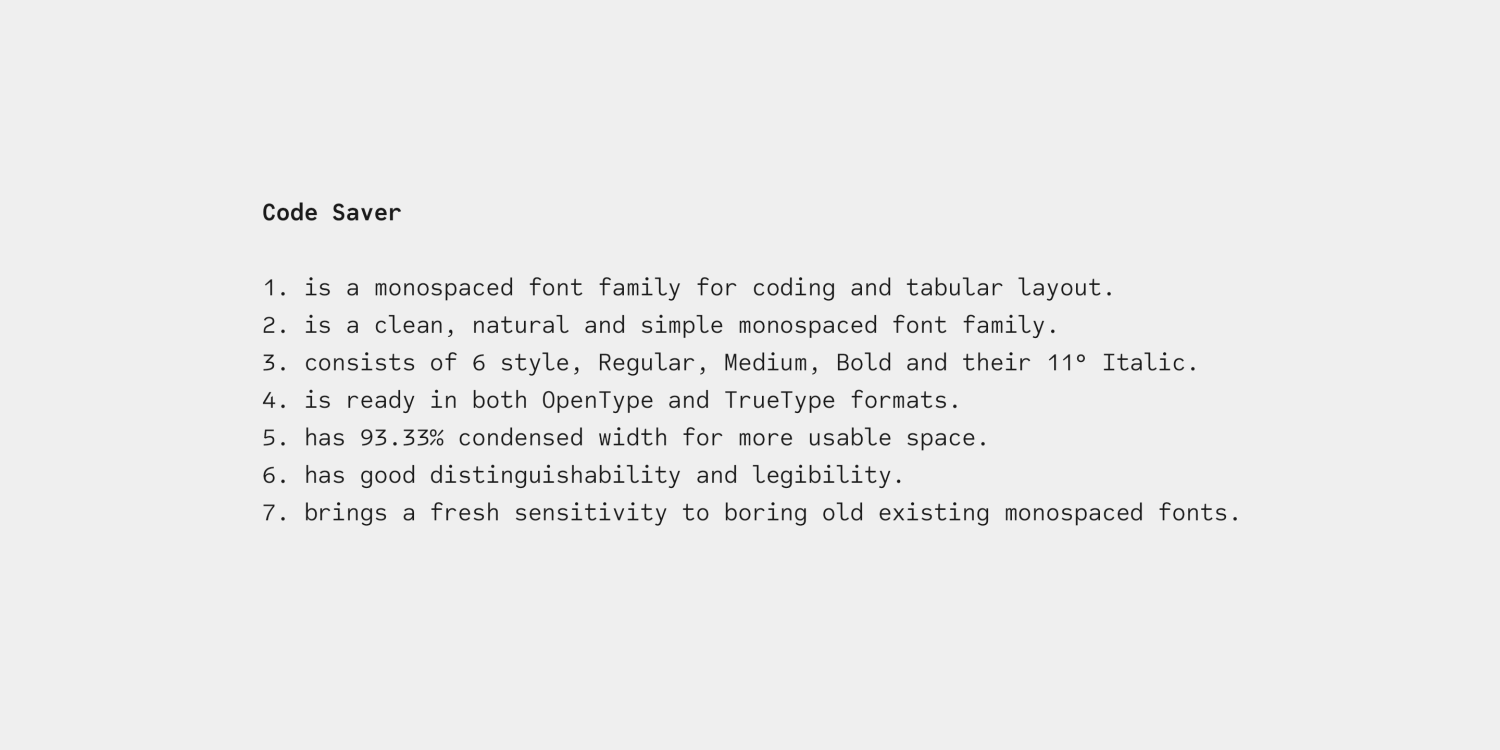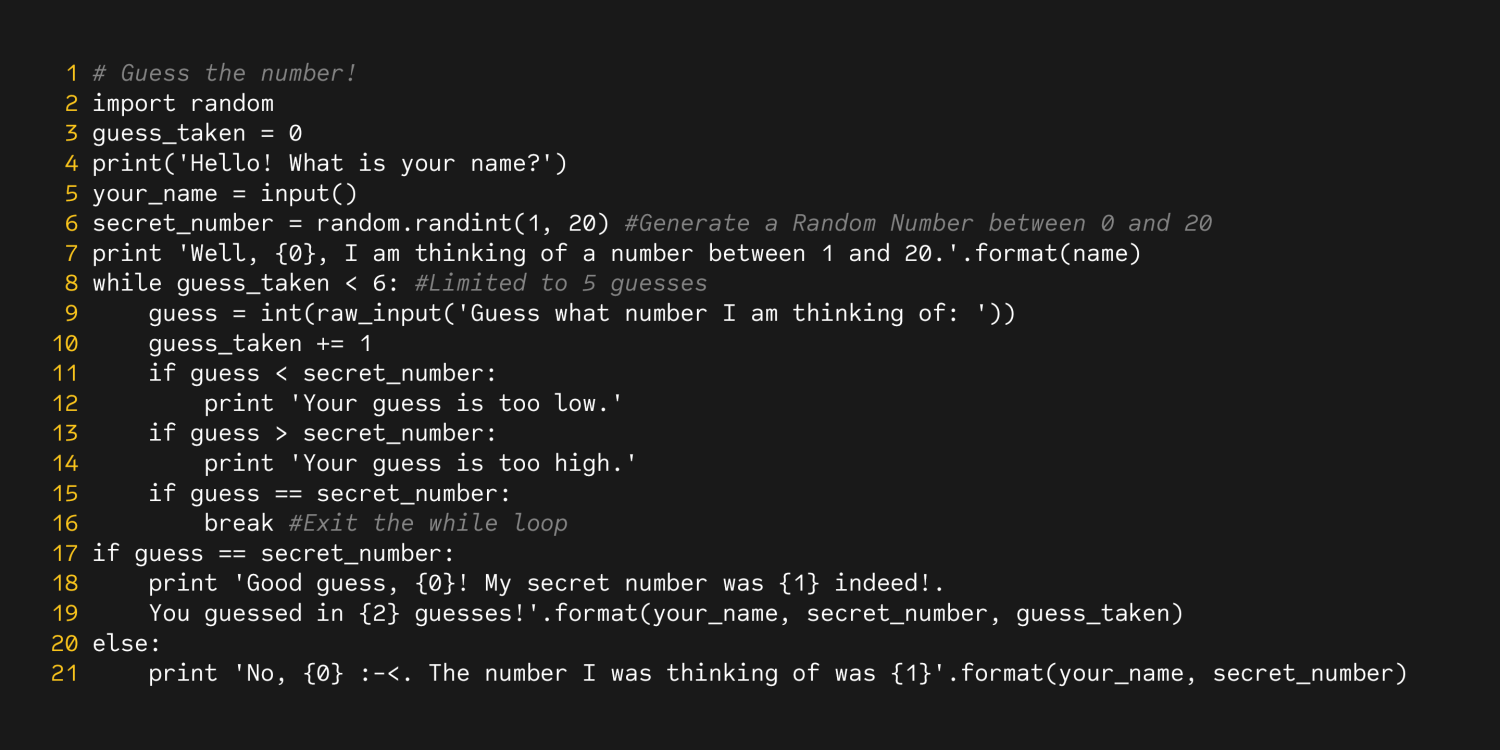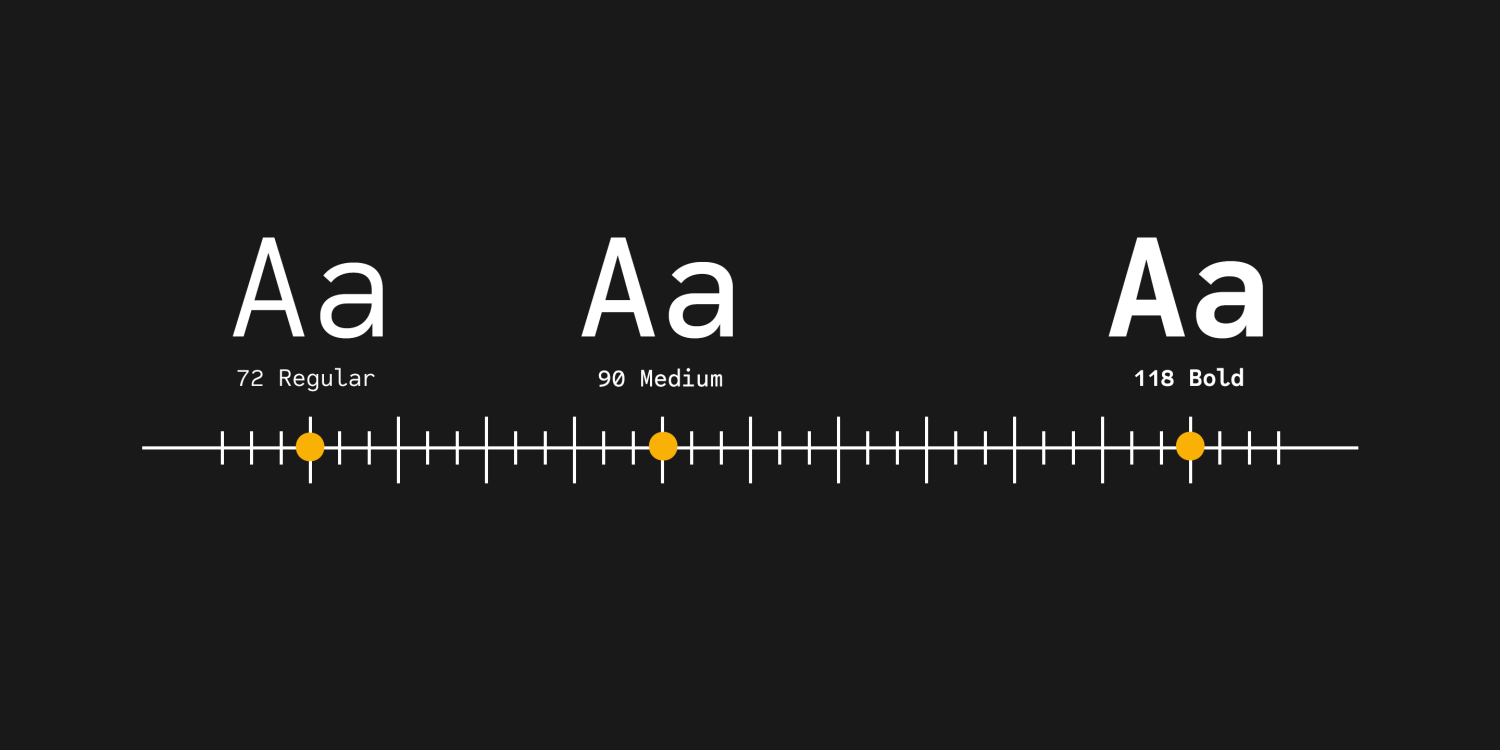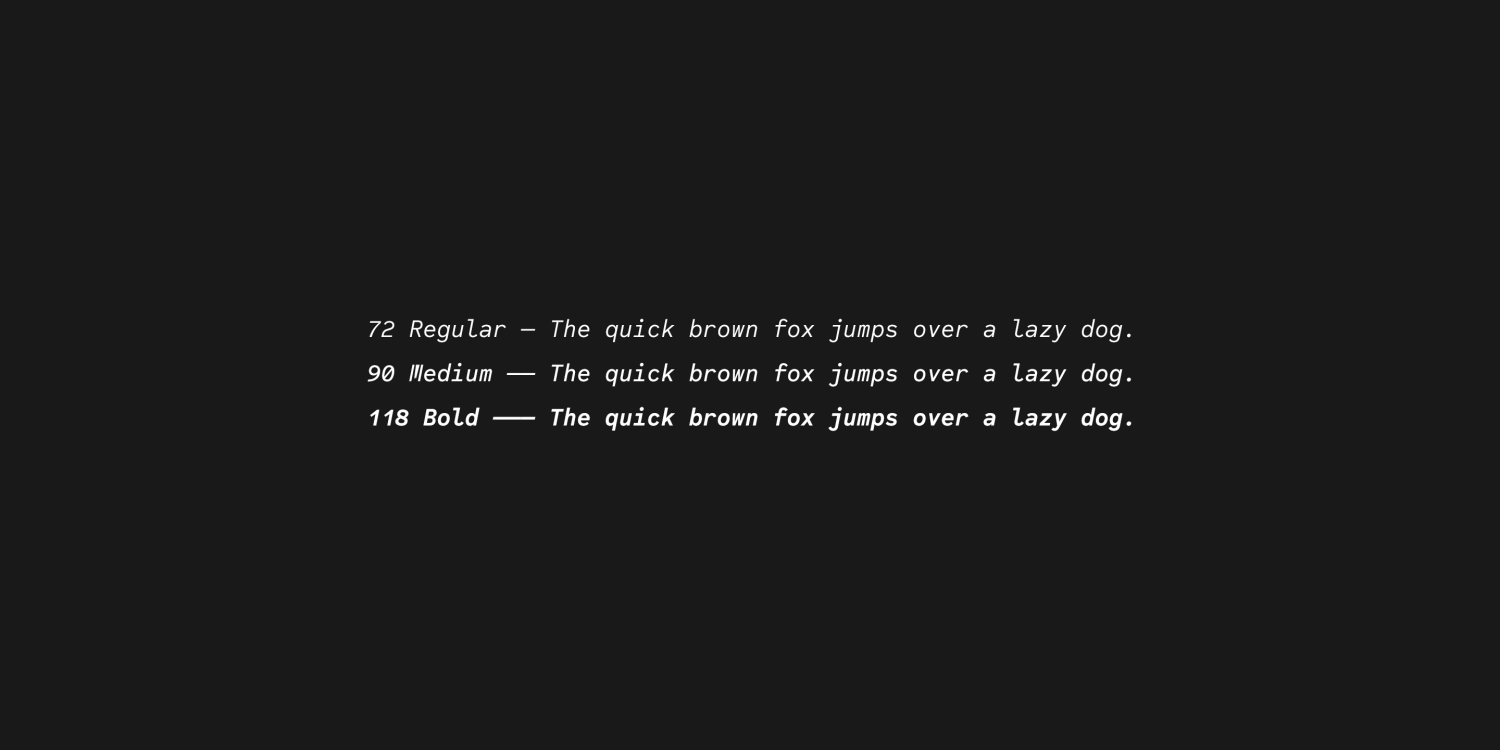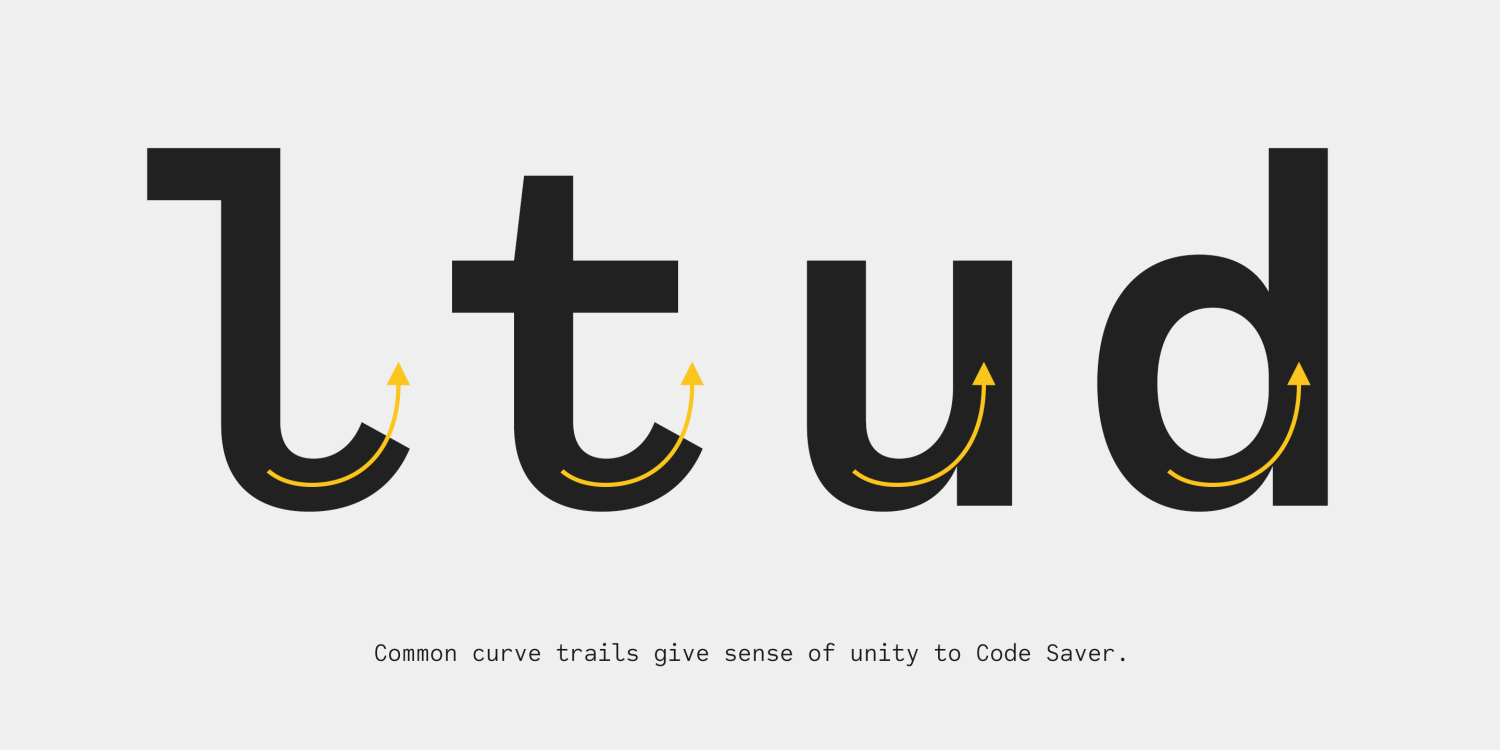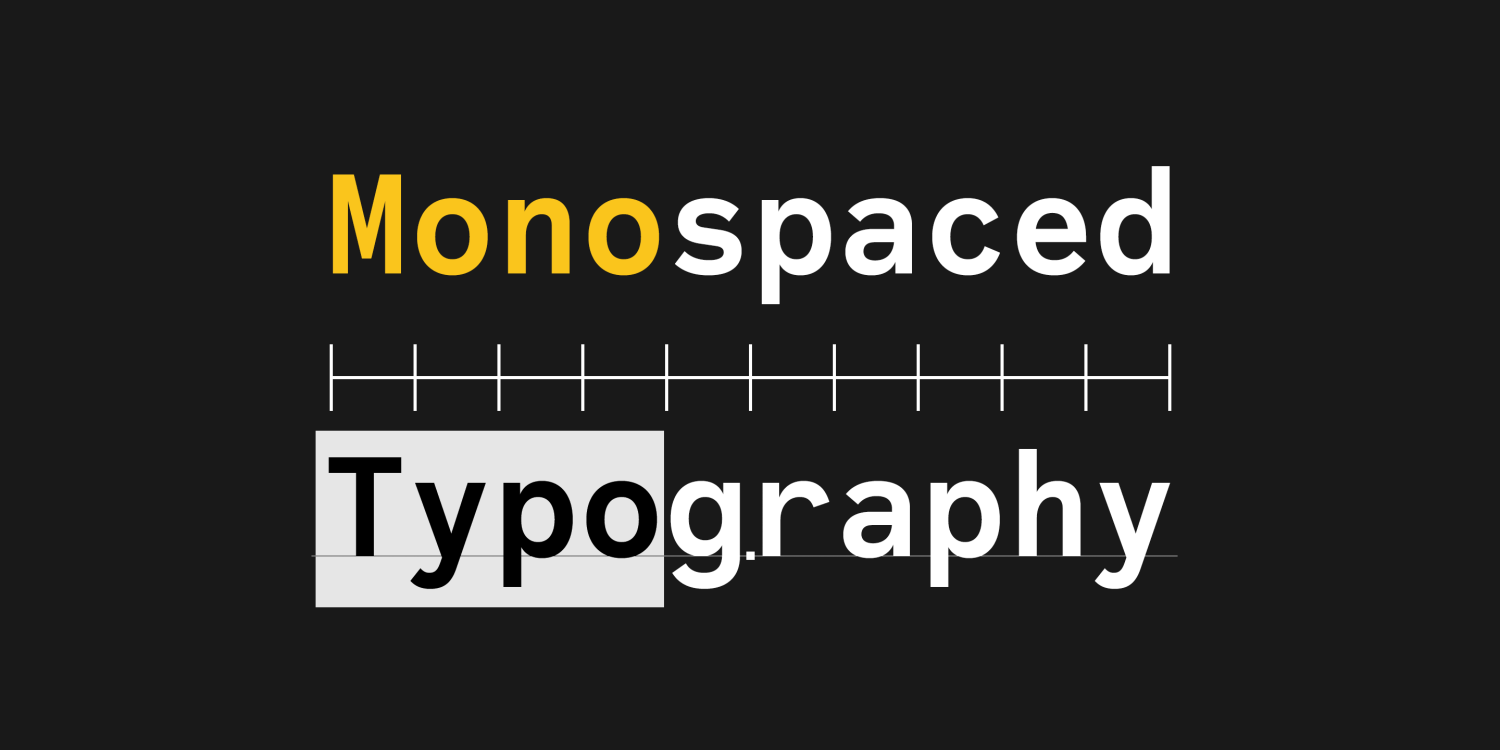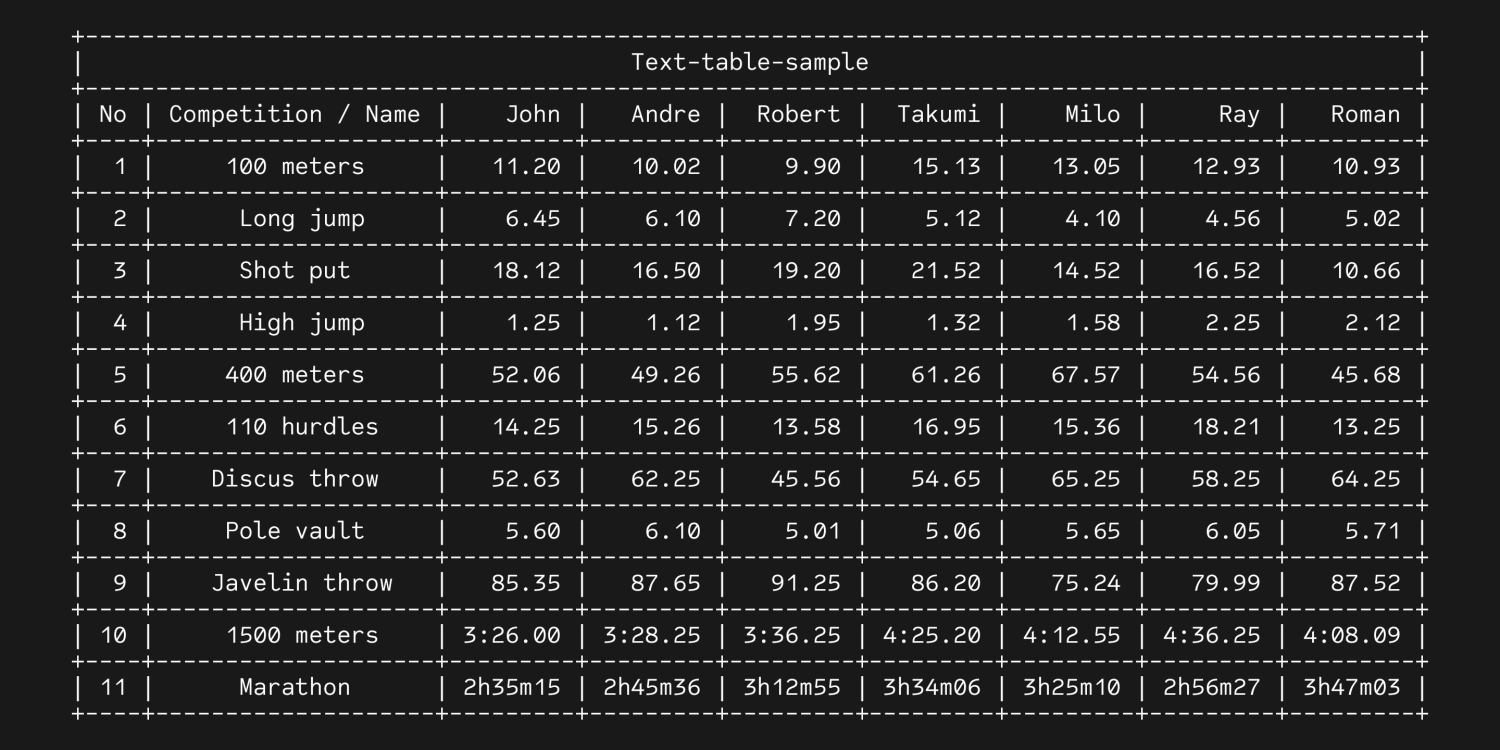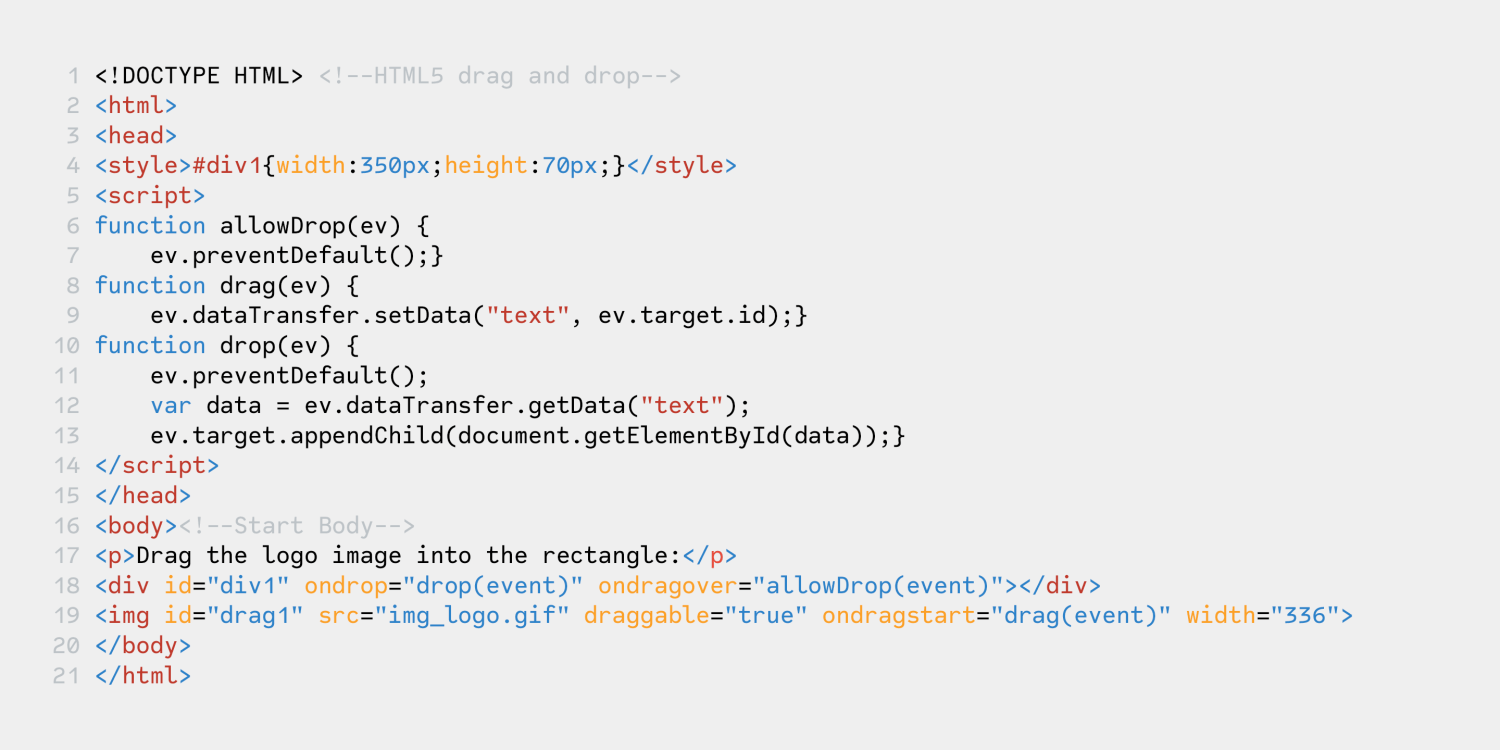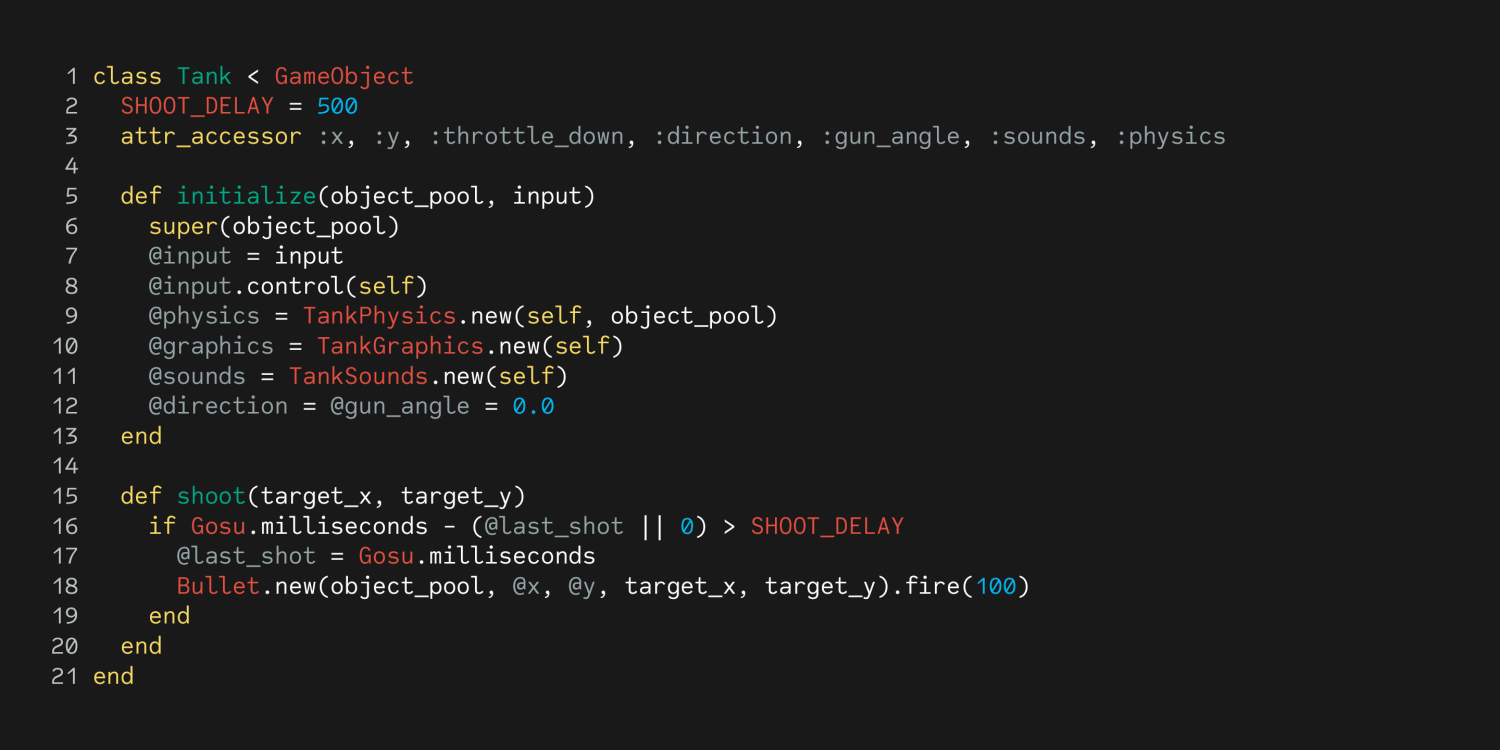
Code Saver
Font Family by Dharma Type
Code Saver — The Next-Generation Monospaced Font
Code Saver is a modern monospaced font family designed specifically for coding and tabular layouts, combining clarity, efficiency, and fresh design sensitivity.
1. Tailored for programming environments and data display.
2. Features a clean, natural, and simple aesthetic for everyday use.
3. Includes 6 styles: Regular, Medium, Bold, and their matching 11° Italics.
4. Designed with a 93.33% condensed width, maximizing screen space.
5. Offers excellent legibility and character distinction, especially in numerals.
6. Brings a contemporary feel to monospaced type, refreshing the experience of code editors and terminal windows.